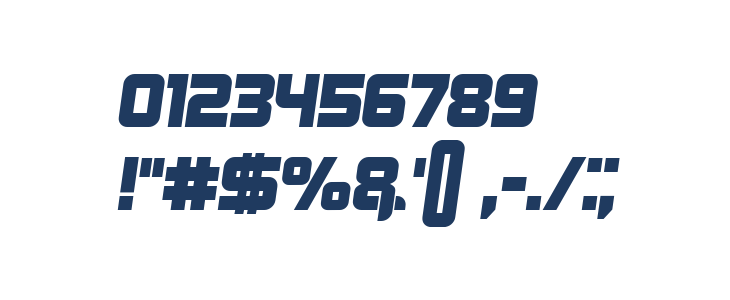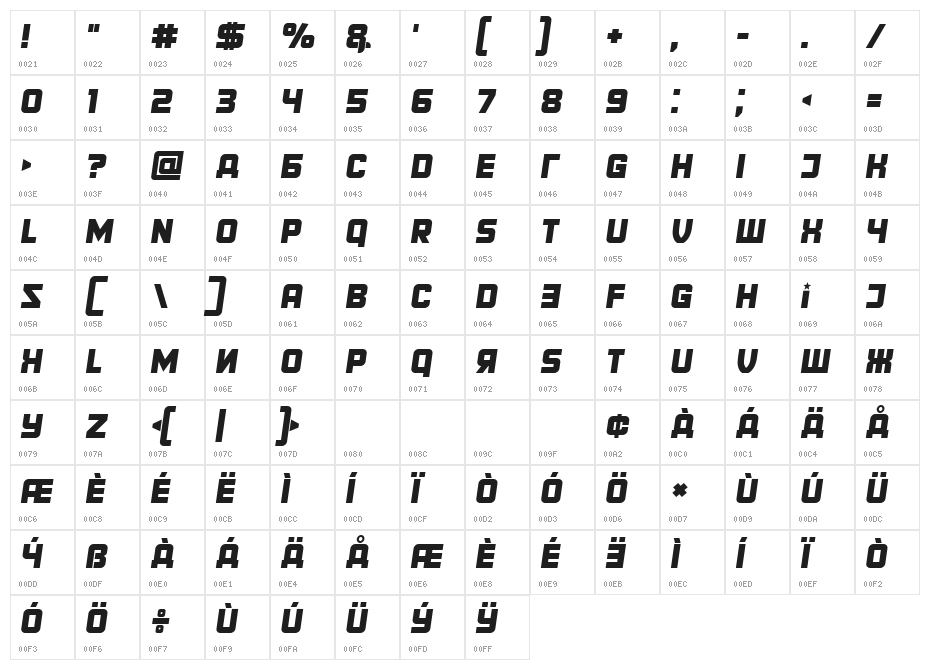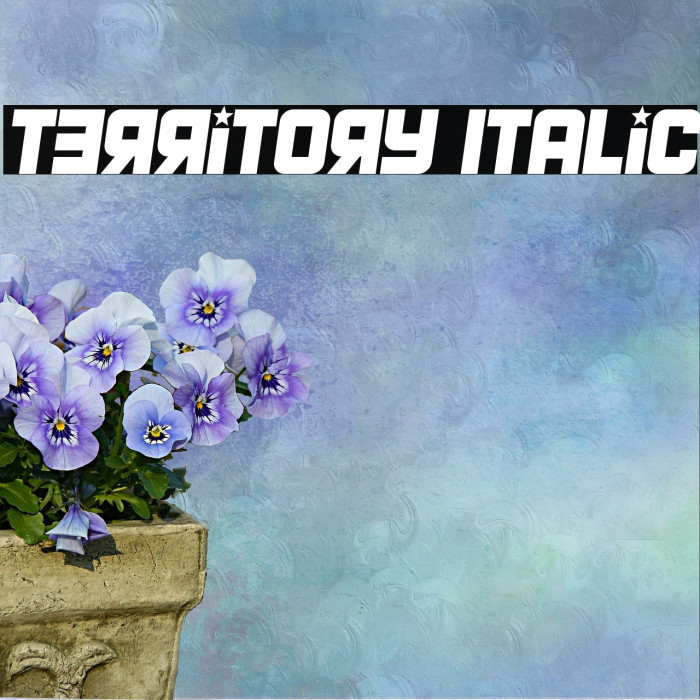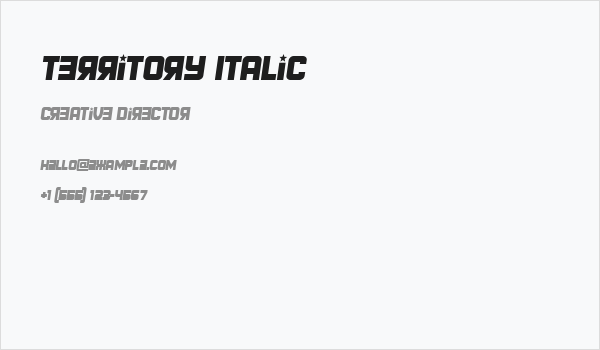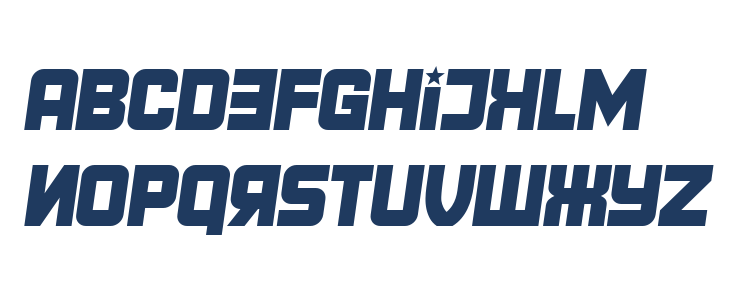
Territory Italic Font
Territory Italic Description
This font features a bold and dynamic style with a strong geometric influence. The characters are italicized, giving them a sense of motion and energy. The strokes are thick and consistent, creating a robust and impactful appearance. The design incorporates sharp angles and clean lines, contributing to a modern and futuristic aesthetic. The uppercase and lowercase letters maintain a uniform height, enhancing readability while preserving a unique character. The numerals and special characters are designed to match the boldness and style of the alphabet, ensuring a cohesive look across all text elements.